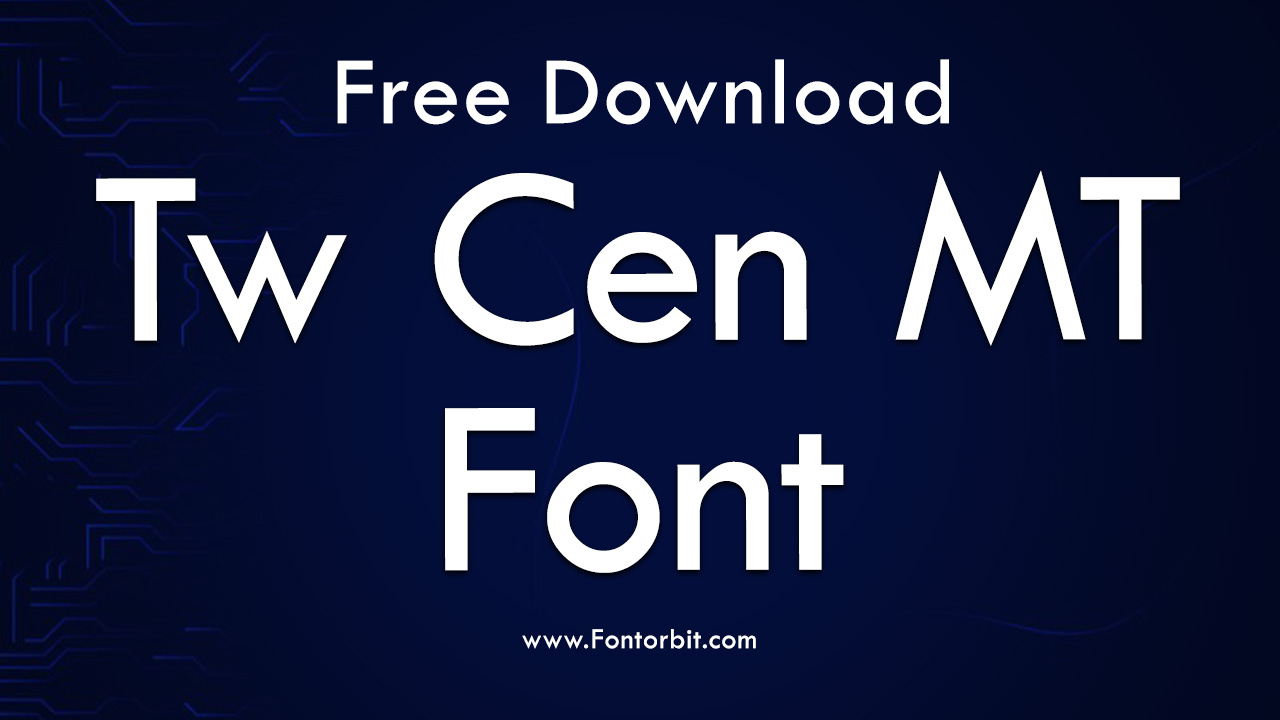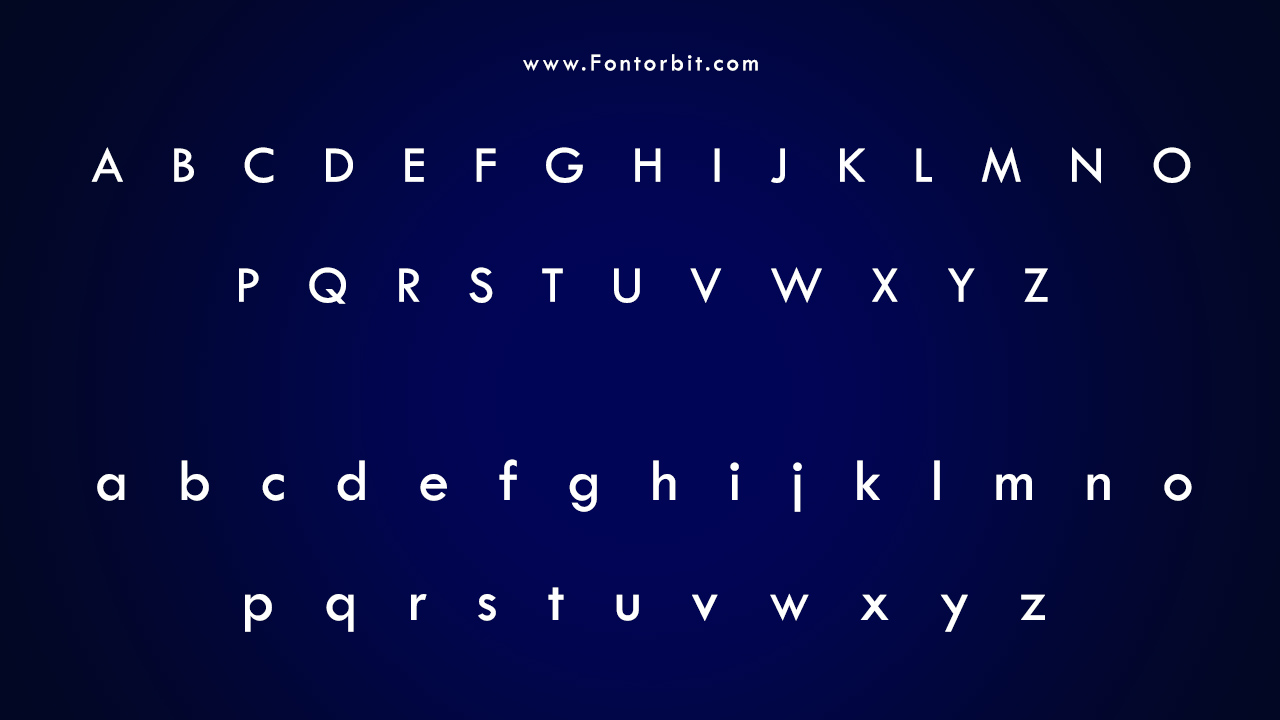
Tw Cen MT font is a geometric sans-serif typeface designed by Sol Hess and released by Monotype in 1937. Inspired by the Bauhaus style, it exhibits clean, simple, and minimalistic design elements.
Due to its versatility and modern appeal, Tw Cen MT has become popular, making it ideal for print and digital designs.
Tw Cen MT Family Includes
The Tw Cen MT family offers diverse weights and styles, allowing designers to use the font in various contexts. The typeface includes regular, bold, and italic variants to cater to different design needs.
- Tw Cen MT Bold
- Tw Cen MT Bold Italic
- Tw Cen MT Italic
- Tw Cen MT Condensed
- Tw Cen MT Condensed Bold
- Tw Cen MT Condensed Extra Bold
Notable Uses Of Tw Cen MT
Tw Cen MT finds wide use in branding, logos, and editorial design because of its readability and clean aesthetics. The typeface’s geometric shapes and even strokes make it a popular choice for contemporary projects. It has been used in:
- Corporate identity designs
- Editorial layouts for magazines and books
- Posters and advertising materials
- User interface designs for websites and apps
- Signage and wayfinding systems
Tw Cen MT’s clean and modern look makes it suitable for various applications. It’s ideal for headlines, body text, and even digital interfaces. The font’s simplicity and clarity work well in print and web projects, especially in contexts where readability is key.
Last Words:
Tw Cen MT is an excellent choice for designers looking for a geometric sans-serif font that embodies modernism and simplicity. With its range of styles and notable uses, it’s a versatile option that fits various design projects, from editorial layouts to corporate branding.
3.Where Is Tw Cen MT Commonly Used?
It is commonly used in branding, editorial design, and user interfaces.
4.Is Tw Cen MT A Good Font For Web Design?
Yes, its clean and geometric design makes it suitable for web interfaces.
5.Does Tw Cen MT Have A Bold Version?
Yes, Tw Cen MT offers bold and bold italic variants.
6.Is There A Condensed Version Of Tw Cen MT?
Yes, Tw Cen MT includes condensed versions for tighter spacing.
7.What Makes Tw Cen MT A Good Choice For Corporate Design?
Its modern, simple, and professional appearance makes it ideal for corporate identities.